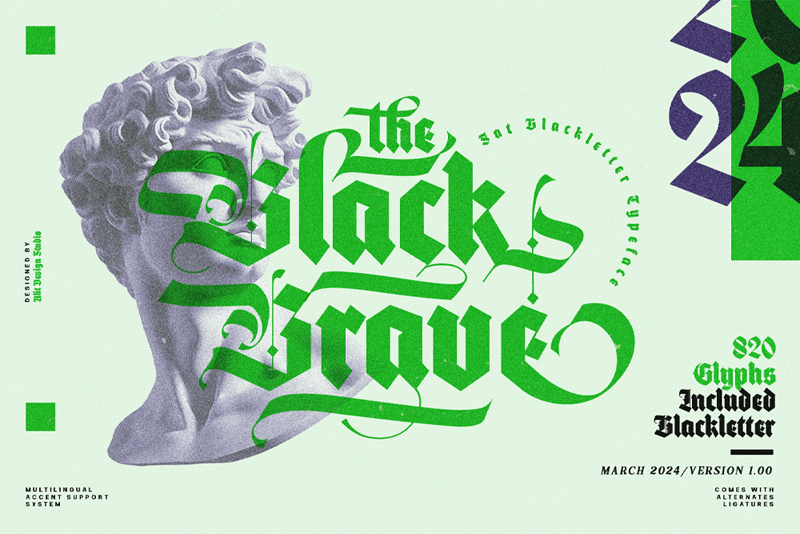
| Font name: | Black Brave |
| Author: | Alit Design |
| Note by Alit Design | |
Introducing Black Brave � a bold and commanding blackletter font designed to make your text stand out with its striking presence. Inspired by medieval calligraphy and infused with a modern twist, Black Brave exudes strength, elegance, and a touch of vintage charm. With its intricate details, swashes, ligatures, and alternative characters, this font offers endless possibilities for creating captivating designs. This is font Demo just for personal use, Not permitted for commercial use. The donation is very appreciated. Please check here for more info about the license: https://alitdesign.net/license/ DOWNLOAD FULL VERSION AND FOR COMMERCIAL USE: https://alitdesign.net/product/black-brave-typeface/ Creative Market: https://creativemarket.com/alitdesign/92474839-Black-Brave-Typeface visit my website for full version and commercial use: https://alitdesign.net/ follow my Instagram to update my portfolio: https://www.instagram.com/alitdesign_studio/ Email : info@alitdesign.net |